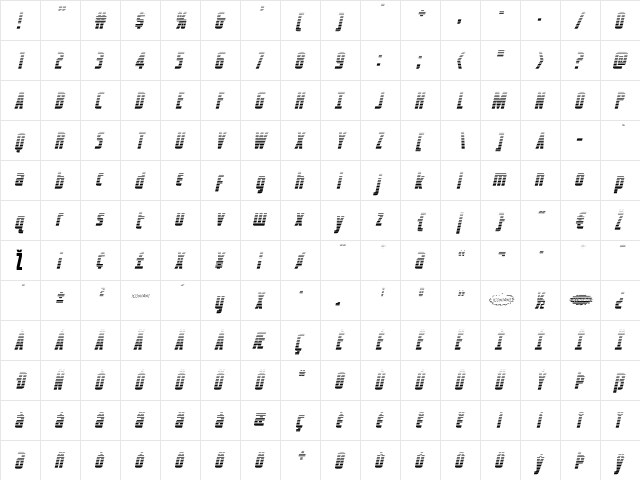
Captain Canaveral GradientItal Italic
Design Context for Captain Canaveral GradientItal Typeface
Captain Canaveral GradientItal is a composed and adaptable typeface that performs quietly and consistently across a wide range of design contexts. Its italic angle brings a sense of urgency and motion to the letterforms.
Pro Tip: Try Captain Canaveral GradientItal for annotation and caption copy alongside an upright companion — the contrast in angle creates a dynamic but ordered typographic system.